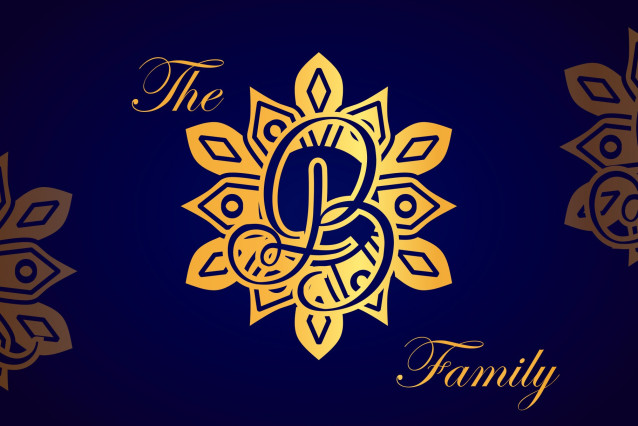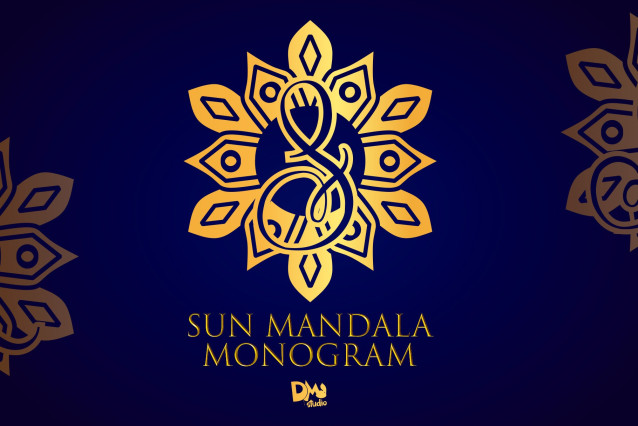
Sun Mandala Monogram Font
Sun Mandala Monogram Font is a luminous monogram font that merges the powerful energy of the sun with intricate mandala artistry. Each character is thoughtfully designed with radiant lines and ornamental curves, making it a perfect fit for spiritual branding, holistic wellness products, personal logos, seasonal packaging, and motivational art. It brings warmth, positivity, and elegance to any creative project.